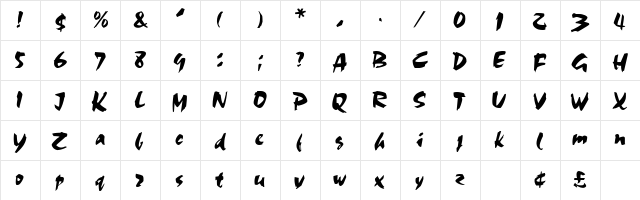
Marker Board Display SSi Regular Font Preview
Marker Board Display SSi Regular
Design Context for Marker Board Display SSi Typeface
Marker Board Display SSi is built around its visual character rather than neutral utility — its distinctive forms are designed to make an impression at display sizes.
Font Pairing: Pair with a clean neutral sans-serif for body copy to let Marker Board Display SSi's character lead without overwhelming the composition.
Pro Tip: Use Marker Board Display SSi exclusively at display sizes — it was designed to be seen, not read at length. Let a neutral companion handle body copy.